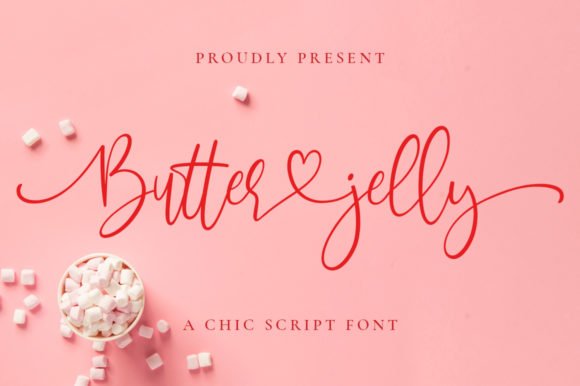
The Sweetest Script for Your Next Design Project
Have you ever stared at a blank page, trying to conjure up the perfect words to express your creativity? That’s where the magic happens – and that’s where the Butter Jelly Font comes in. This sweet, soft hand-lettered handwritten font is a game-changer for designers looking to add a touch of authenticity to their projects.
Perfect for creating gorgeous wedding invitations, beautiful stationery art, eye-catching social media posts, and cute greeting cards, the Butter Jelly Font is a valuable addition to any designer’s toolkit. Its unique, handwritten feel is sure to capture the attention of your audience and leave a lasting impression. Whether you’re a seasoned pro or just starting out, the Butter Jelly Font is the perfect tool to help you bring your creative vision to life.
Key Features of Butter Jelly Font
• Unique Characteristics: Features a playful, cursive design with hand-drawn elements and subtle texture, making it perfect for creative projects and branding
• Language Support: Supports multiple languages, including Latin, Cyrillic, and Greek scripts
• Font Weight: Includes light, regular, and bold font weights for flexibility
• Scalability: Designed to be highly scalable, making it suitable for use in various contexts, from small text to large headings
Butter Jelly Font Review
Overall, I think Butter Jelly Font has some great qualities that make it a unique addition to any design project. Here are a few things that work well: ✨
• It’s quirky and playful, perfect for creative projects or brands that want to stand out.
• The font’s irregularities give it a human touch, making it feel more approachable and relatable.
• It’s available in a range of weights, making it easy to use in different contexts.
• The font may not be suitable for formal or professional projects, as it can come across as too casual.
• It may not be as readable at small font sizes, so be sure to test it out before using it in a design.
Overall, I think Butter Jelly Font is a fun and unique choice for designers who want to add some personality to their work. While it may not be suitable for every project, it’s a great option for those who want to stand out and have some fun with their design.
Tips for Getting the Most Out of Butter Jelly Font
Use Butter Jelly Font for titles and headings to add a touch of elegance and sophistication to your designs.
Combine Butter Jelly Font with other fonts to create a unique and eye-catching visual style.
Use Butter Jelly Font for:
Branding and marketing materials
Editorial and publishing projects
Alternatives to Butter Jelly Font for Designers
Great Vibes Font is a beautiful, modern script font that works well for titles, headings, and quotes. It’s ideal for creative projects that need a touch of elegance and sophistication. Great Vibes Font is a great alternative to Butter Jelly Font for projects that require a more refined and polished look.
Compared to Butter Jelly Font, Great Vibes Font has a more polished and refined look, making it suitable for formal and professional projects. However, Butter Jelly Font has a more playful and whimsical feel, making it ideal for casual and creative projects.
Pacifico Font is a elegant and sophisticated script font that works well for titles, headings, and body text. It’s ideal for creative projects that need a touch of elegance and sophistication. Pacifico Font is a great alternative to Butter Jelly Font for projects that require a more refined and polished look.
Compared to Butter Jelly Font, Pacifico Font has a more elegant and sophisticated feel, making it suitable for formal and professional projects. However, Butter Jelly Font has a more playful and whimsical feel, making it ideal for casual and creative projects.
Alex Brush Font is a beautiful and elegant script font that works well for titles, headings, and quotes. It’s ideal for creative projects that need a touch of elegance and sophistication. Alex Brush Font is a great alternative to Butter Jelly Font for projects that require a more refined and polished look.
Compared to Butter Jelly Font, Alex Brush Font has a more elegant and sophisticated feel, making it suitable for formal and professional projects. However, Butter Jelly Font has a more playful and whimsical feel, making it ideal for casual and
What is the character set of the Butter Jelly Font?
The Butter Jelly Font includes a wide range of characters, including:
* Latin alphabet (a-z, A-Z)
* Cyrillic alphabet (а-я, А-Я)
* Greek alphabet (α-ω, Α-Ω)
* Punctuation marks and symbols
* Numerals and digits
* Accents and diacritics
The font also includes a range of ligatures, swashes, and ornaments to enhance your design. However, please note